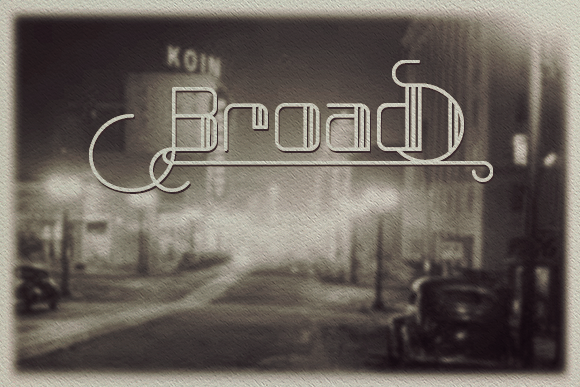
Broad font
Broad is a classic typeface with a modern, adventurous edge.
Created to give the title a touch of classic glamor era, Broads packs a full set of the capital, numbers and punctuation marks. Both the poster, logo design or greeting card, Broad was made to take effect.
Each letter is solving the puzzle three thick lines on the right side that took me months to put together. Hope you enjoy the results!
Uppercase Numbers and punctuation